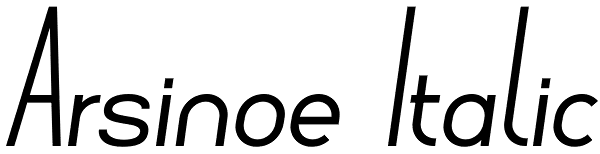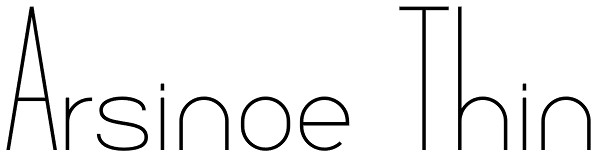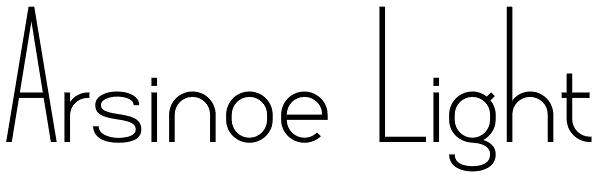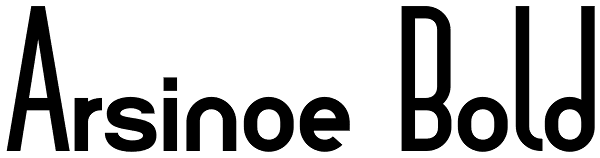
Arsinoe
Arsinoe is a condensed geometric typeface noted for their unorthodox long ascenders and low x-height. Family consists of five different weights plus two special versions accompanied by their italic version. The Arsinoe type family includes extended...